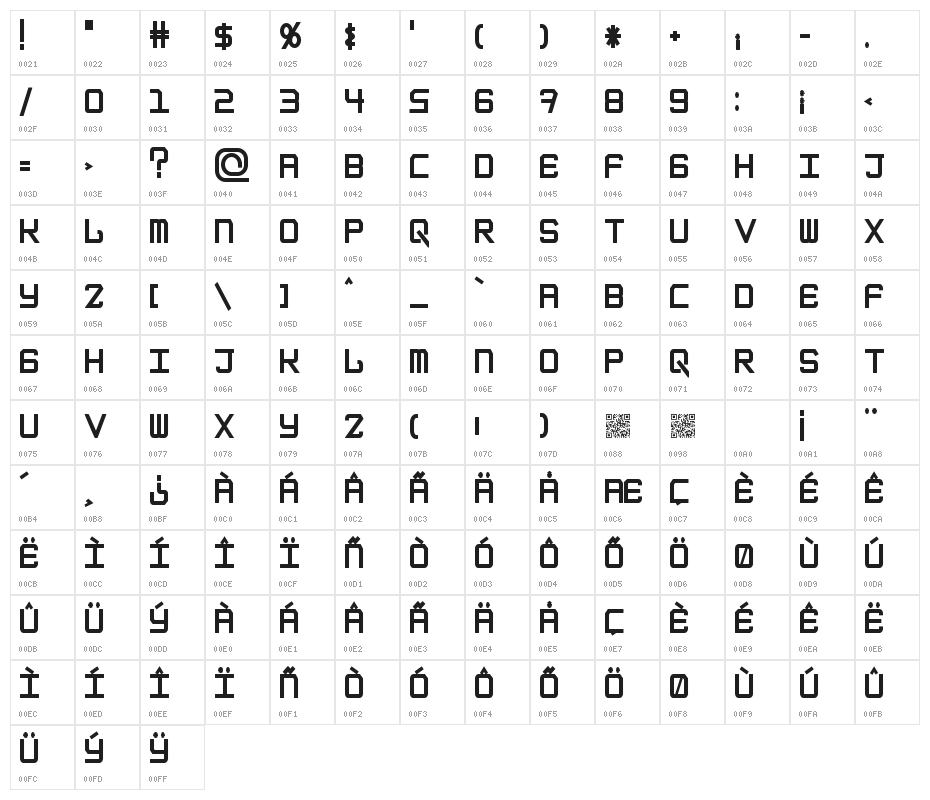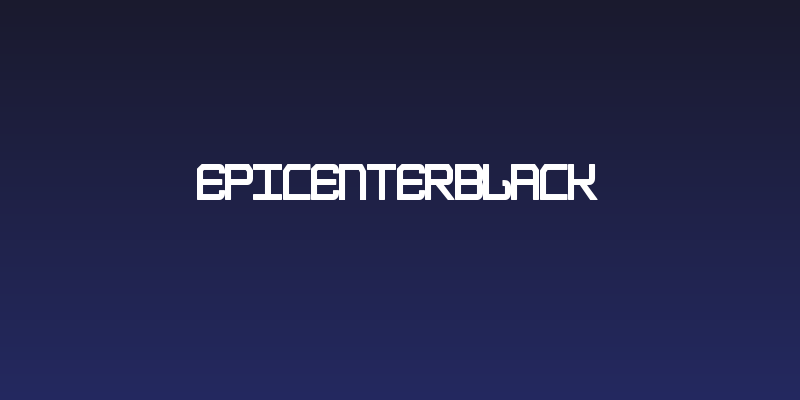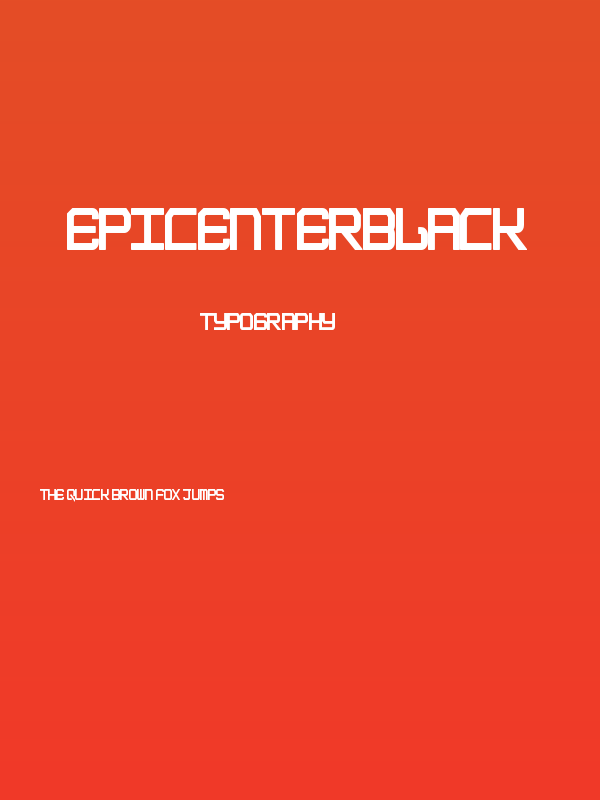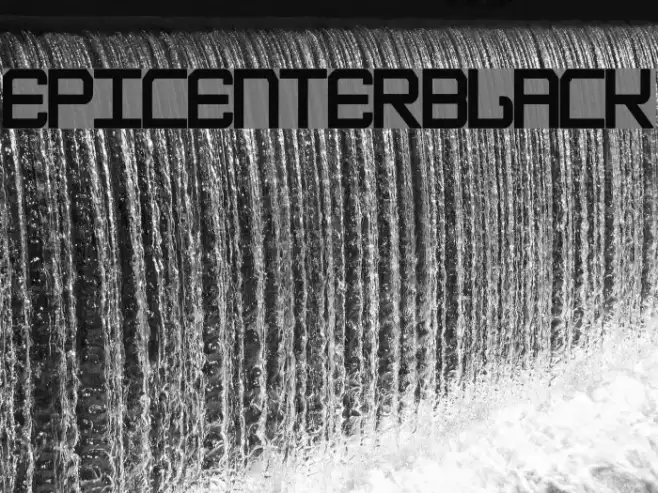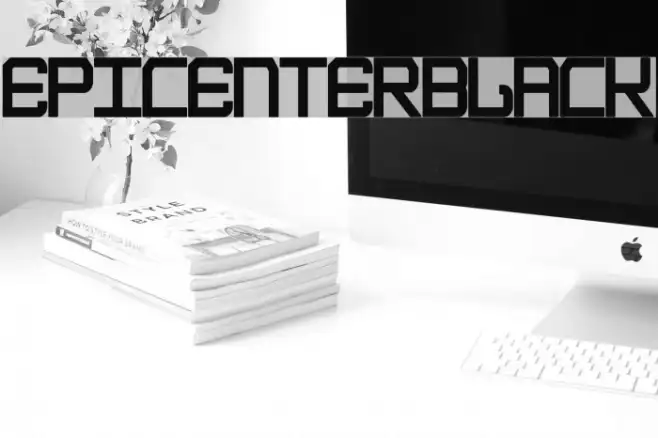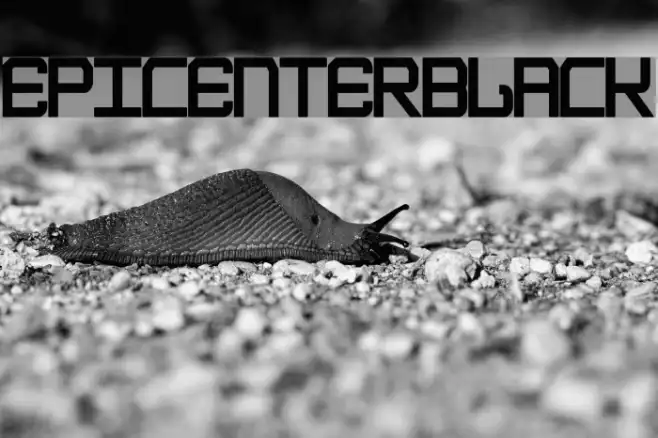
EpicenterBlack Font
EpicenterBlack Description
This font features a bold and geometric design with a futuristic appeal. The characters are constructed with sharp angles and straight lines, creating a sense of precision and modernity. The uppercase and lowercase letters maintain a consistent style, with unique cutouts and angular elements that add a dynamic touch. Numbers and special characters follow the same design principles, ensuring uniformity across all glyphs. The overall appearance is striking and impactful, making it suitable for projects that require a strong visual presence.
| Proposed Projects | Ideal for technology branding, sci-fi themed projects, video game titles, and modern poster designs. |